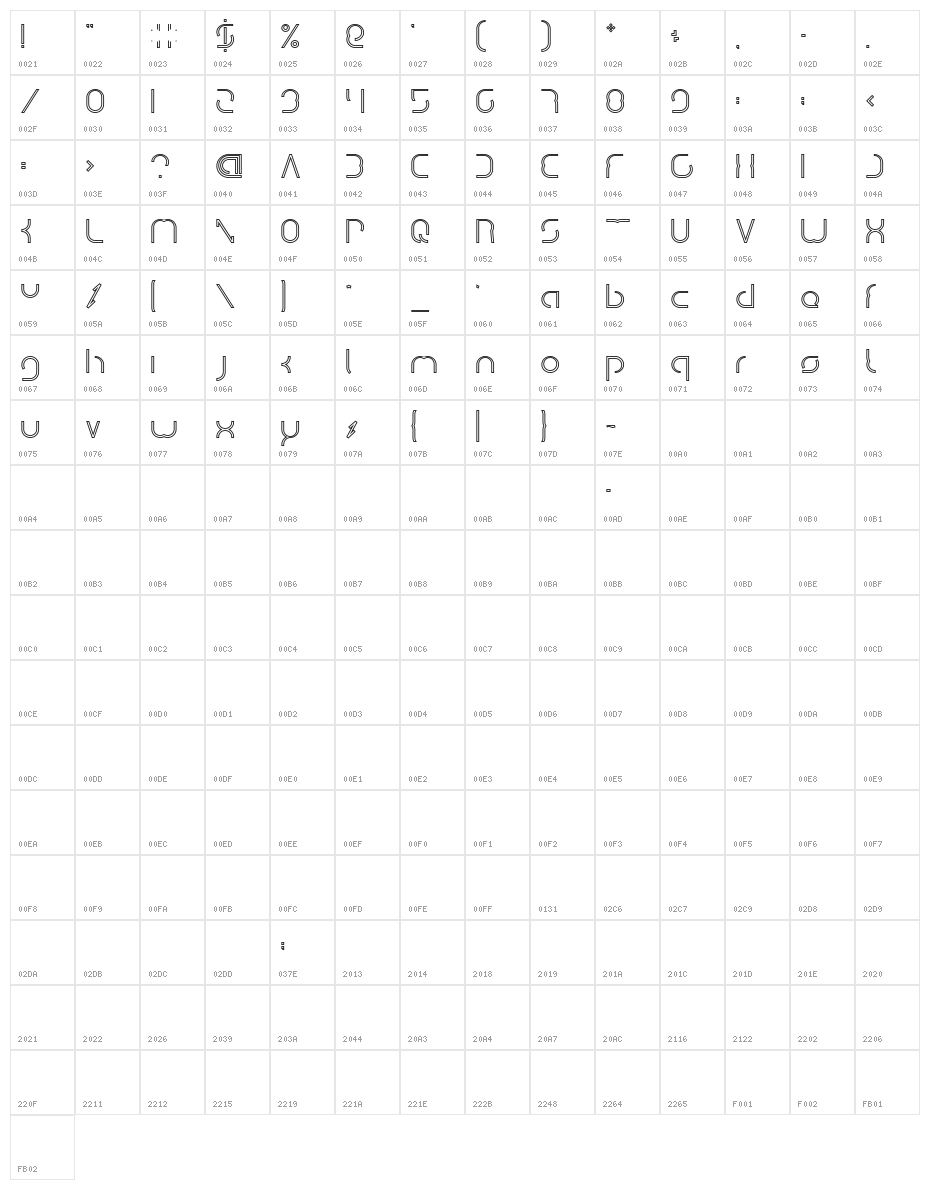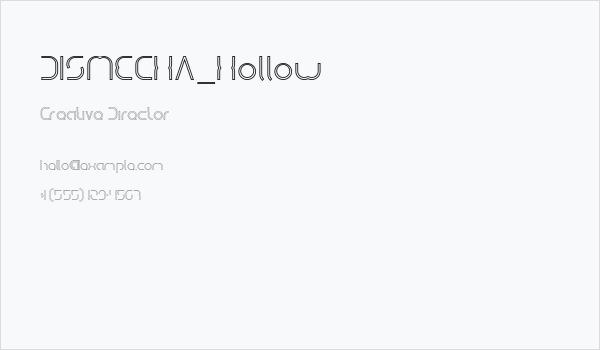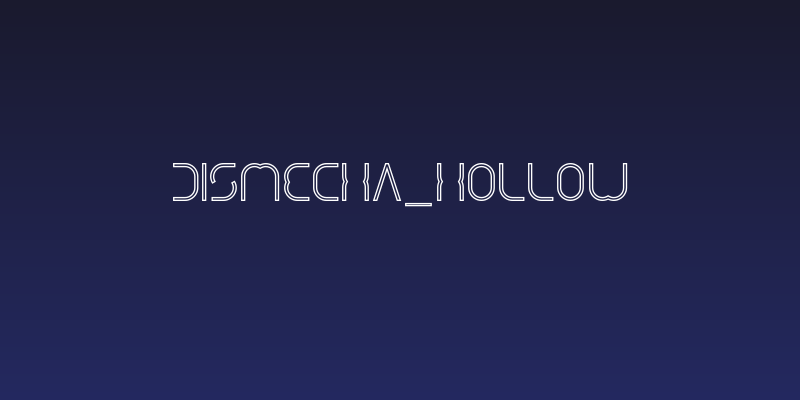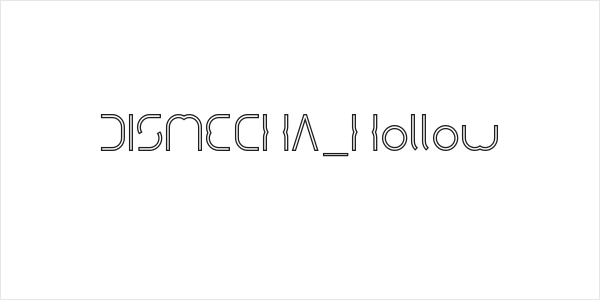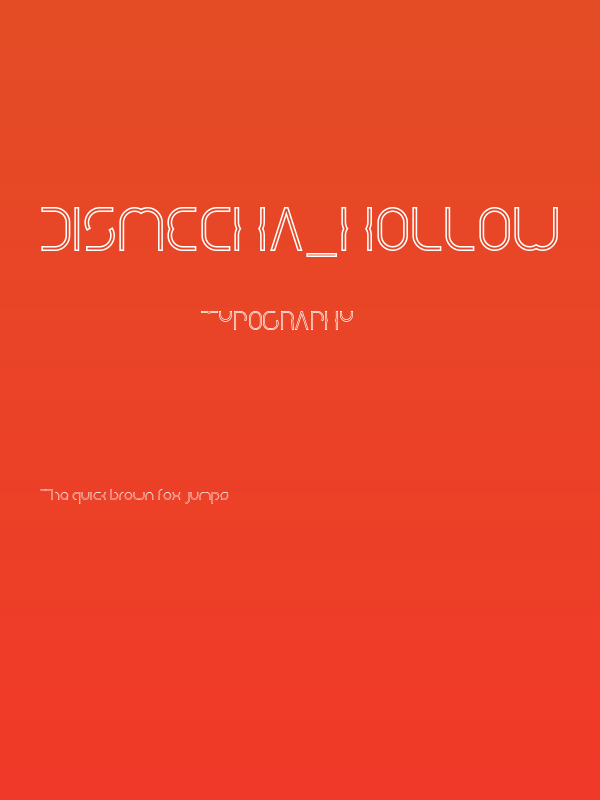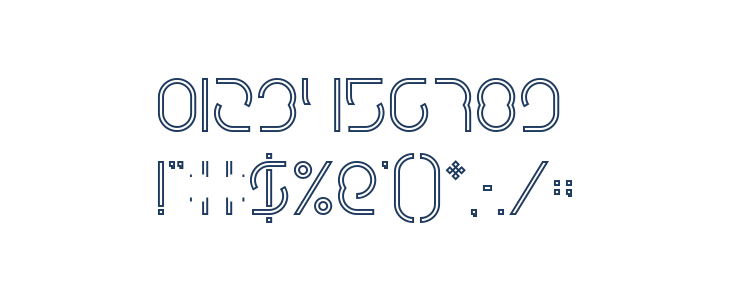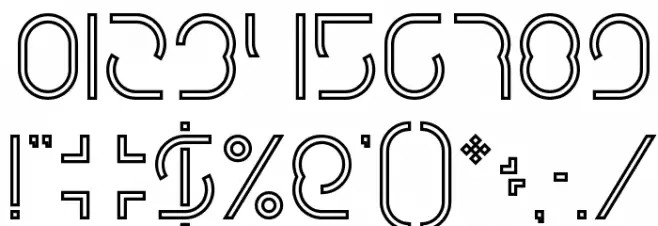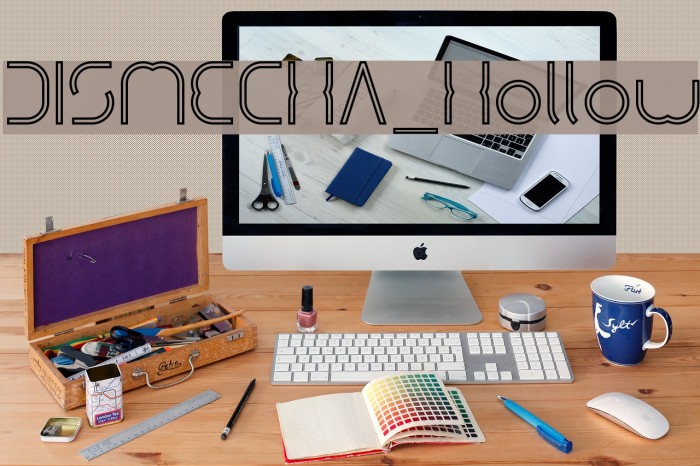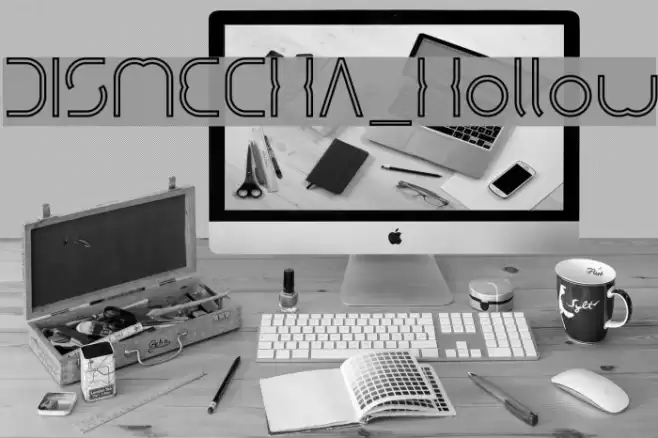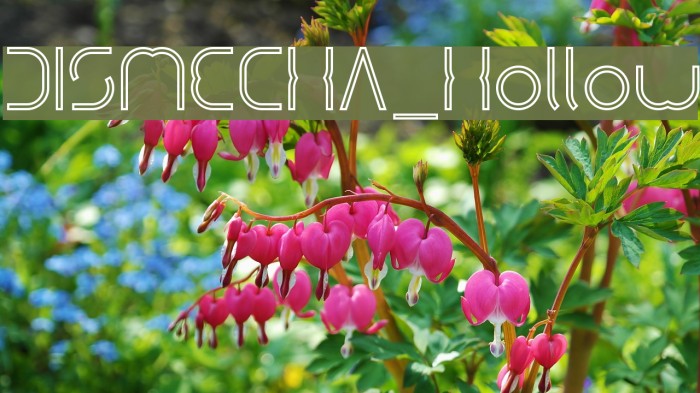
DISMECHA_Hollow Font
DISMECHA_Hollow Description
This font features a unique hollow design with a futuristic and mechanical aesthetic. Each character is outlined with a consistent stroke width, creating a sense of uniformity and precision. The uppercase and lowercase letters maintain a geometric structure, with sharp angles and smooth curves that give it a modern and industrial feel. The numbers and special characters follow the same design principles, ensuring a cohesive look across all glyphs. This font's distinct style makes it stand out, ideal for projects that require a bold and innovative appearance.
| Overall Style | Futuristic |
| Proposed Projects | Ideal for technology branding, sci-fi posters, video game titles, and modern logo designs. |